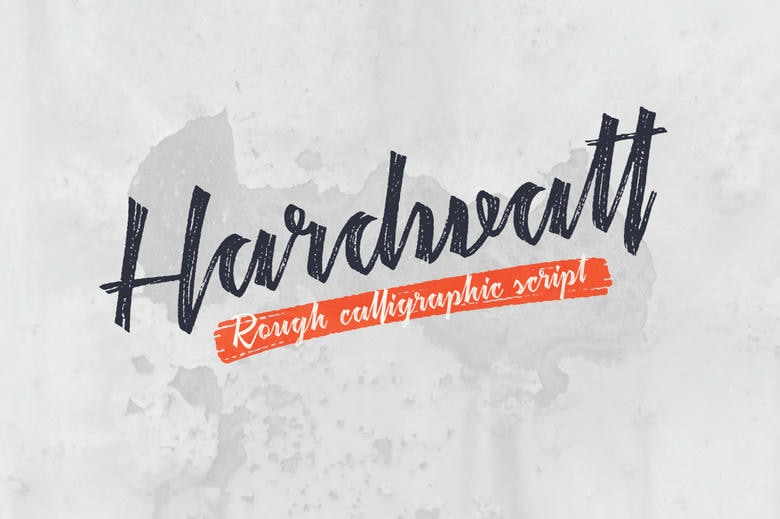
Hardwatt Font
Hardwatt is a fashionable and lovely handwritten font. It is ideal whether you are doing craftwork or digital design work, making a present or greeting cards, etc. Fall in love with its extremely versatile style and use it to make spectacular designs!
Hardwatt Handwritten Script Font